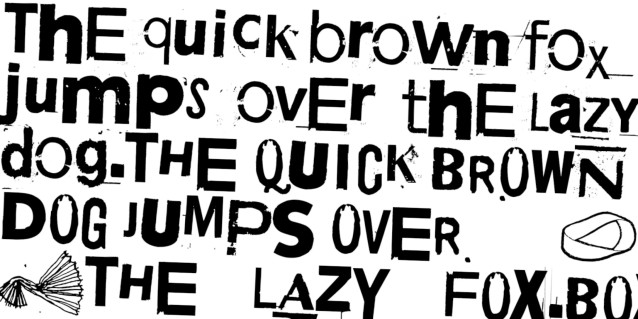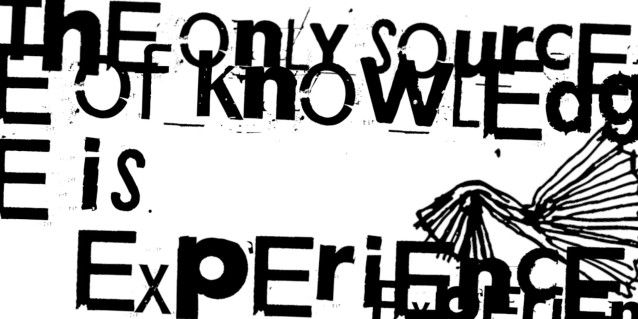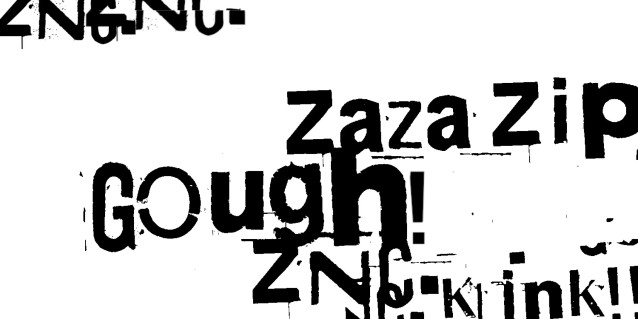
Zaza-zip-gongh-znc-klink Font
Zaza-zip-gongh-znc-klink Font – Zaza Zip Gongh! ZNC. Klink! , suitable for any design needs : logo, branding, modern advertising design, logos, poster quote, book / cover Title, editorial design, website / blog, card, t-shirts, and any hand-lettered needs.